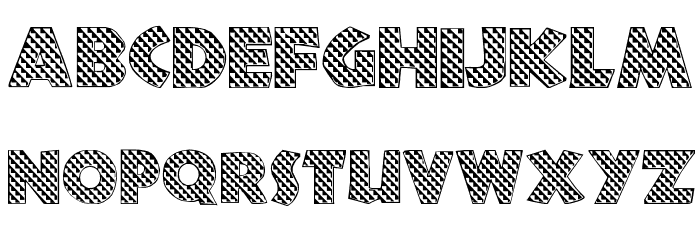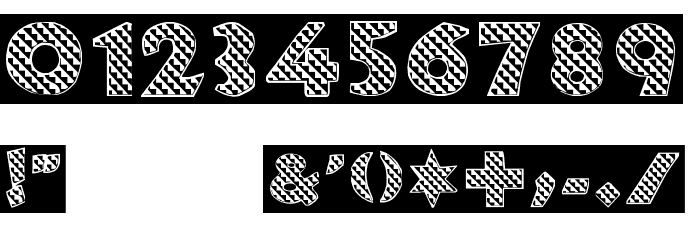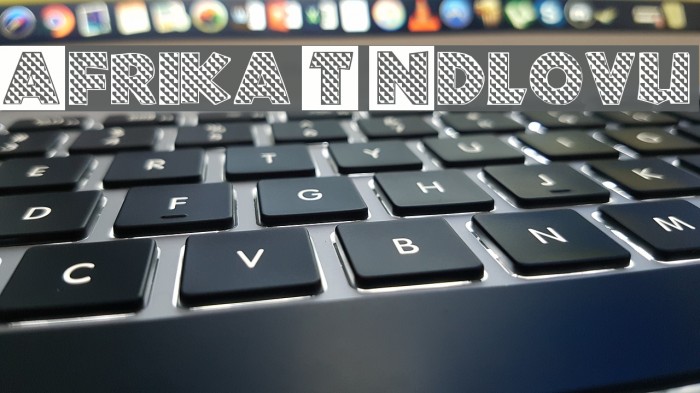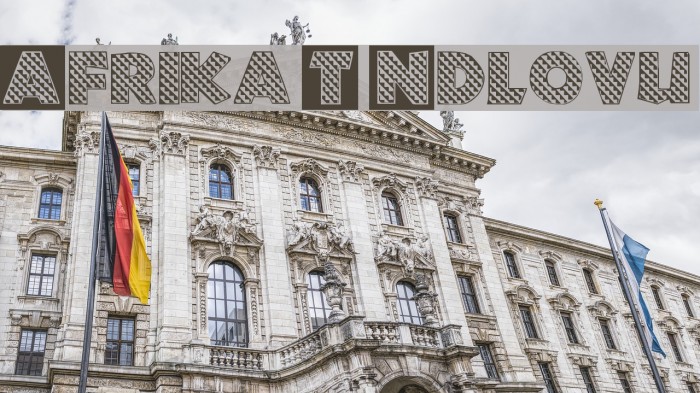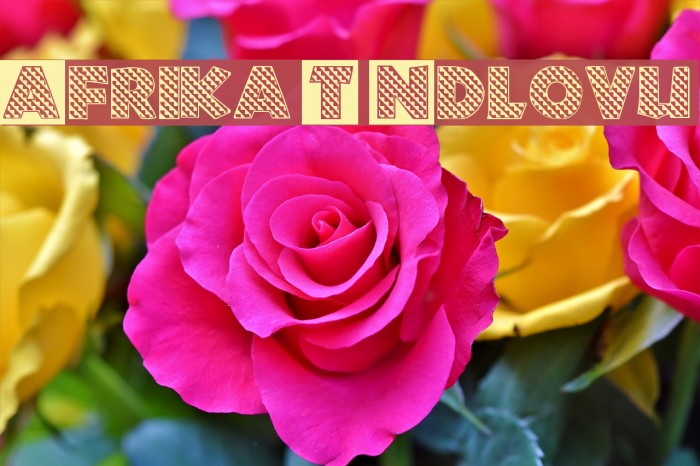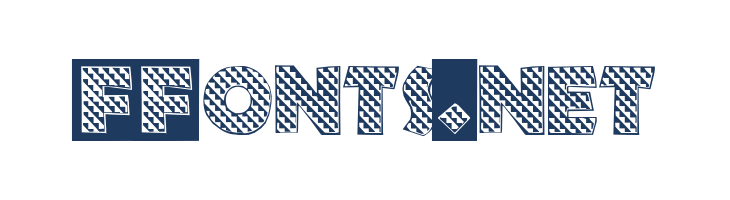
Afrika T Ndlovu Font
This font features a bold, decorative style with a unique pattern filling each character. The letters are uppercase and have a geometric, block-like appearance, making them stand out with a strong visual impact. The pattern within the letters consists of a repetitive, abstract design that adds texture and depth. This font is highly stylized, making it suitable for creative and artistic projects where a distinctive and eye-catching typeface is needed. The characters are evenly spaced, ensuring readability despite the intricate design. The font's boldness and decorative nature make it ideal for use in headlines, posters, and branding materials that require a striking and memorable look.
A bold, decorative font with a unique patterned fill, perfect for eye-catching designs.
- Proposed Projects: Ideal for posters, branding, headlines, and any creative project needing a standout typeface.